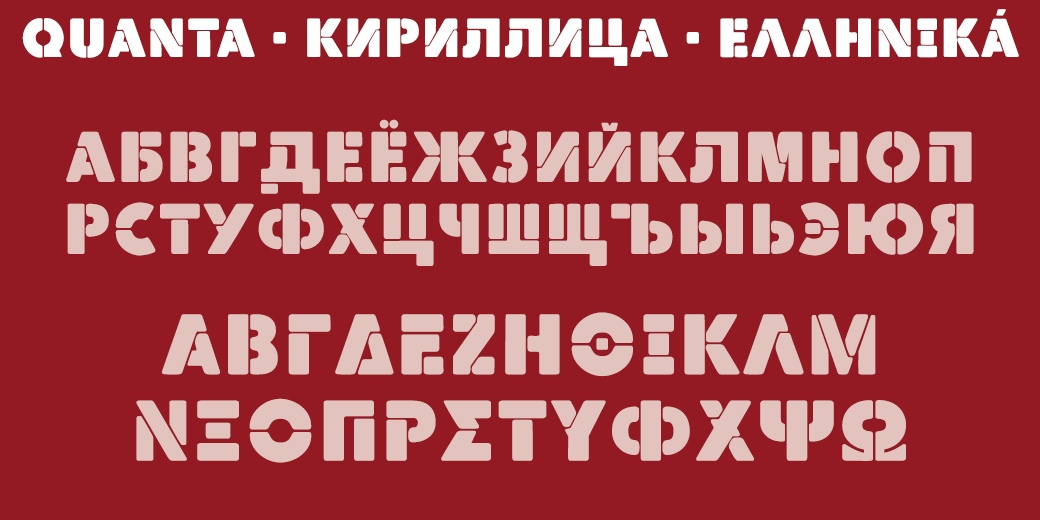
Quanta Font
This font is perfect for technology company logos, scientific research publications, quantum computing branding, futuristic user interfaces, digital innovation campaigns, tech startup materials, aerospace industry presentations, and cutting-edge software applications.
The Quanta Font Free Download is exciting because it represents the future of digital communication with its precise geometric construction and innovative letterforms that perfectly capture the essence of advanced technology and scientific discovery.
The Quanta font family includes ultra-light, light, regular, medium, bold, and black weights, plus corresponding oblique versions, providing designers with extensive typographic flexibility for creating sophisticated tech-forward brand systems and interface designs.
Whether you're designing for emerging technology companies, scientific institutions, or innovative digital platforms, the Quanta Font delivers exceptional modernity and technical precision. Its mathematically precise letterforms showcase perfect harmony between function and futuristic aesthetics, making it ideal for both user interface elements and corporate communications. The font's clean, technical character communicates innovation and expertise, making it particularly valuable for brands operating at the forefront of technological advancement. Professional designers appreciate its exceptional legibility on digital screens and its seamless performance across various device resolutions. The typeface's forward-thinking design reflects the cutting-edge nature of quantum science while maintaining accessibility for diverse audiences. From mobile applications to research presentations, this font adapts brilliantly to any high-tech environment. The Quanta Font Free Download provides remarkable value for designers seeking typography that embodies the future of human innovation. Its neutral yet distinctive personality allows technology brands to communicate complex concepts with clarity and confidence. The font's optimized digital performance and scientific precision make it an indispensable tool for organizations pushing the boundaries of what's possible in our rapidly evolving digital landscape.